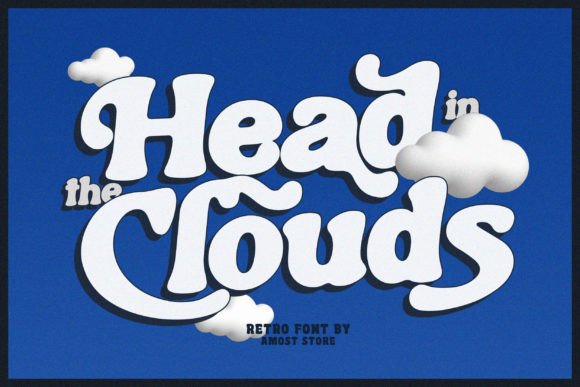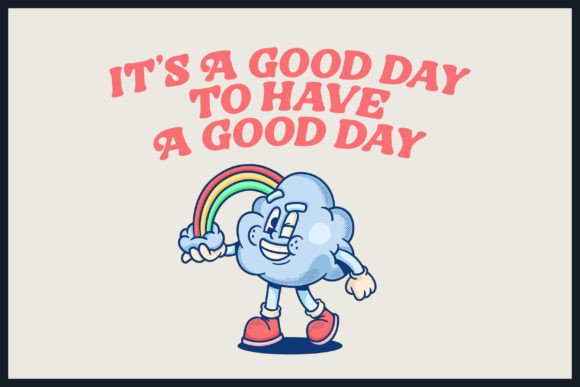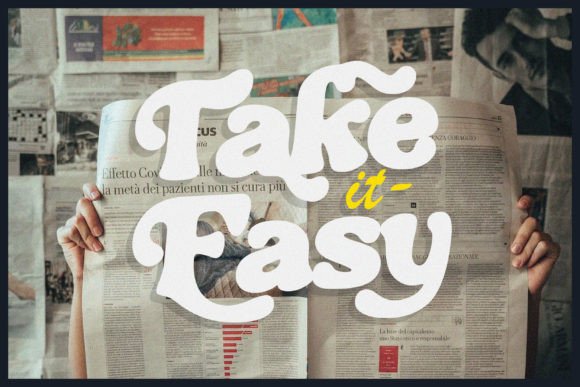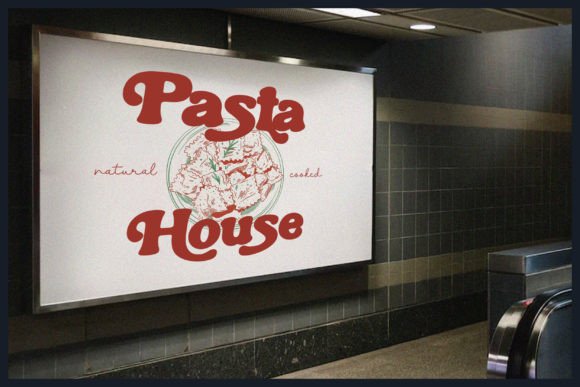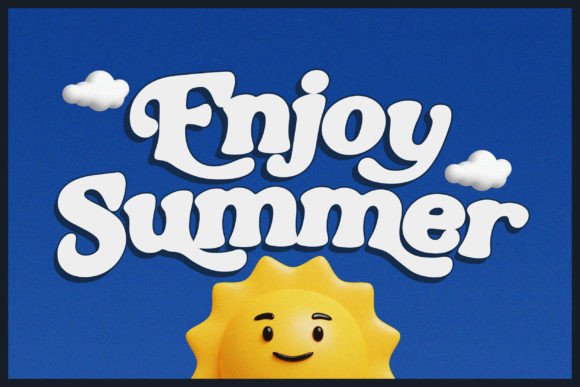
Clouds is a cute and quirky display font. It will add an incredibly joyful touch to your designs. Add this beautiful display font to each of your creative ideas and notice how it makes them stand out!